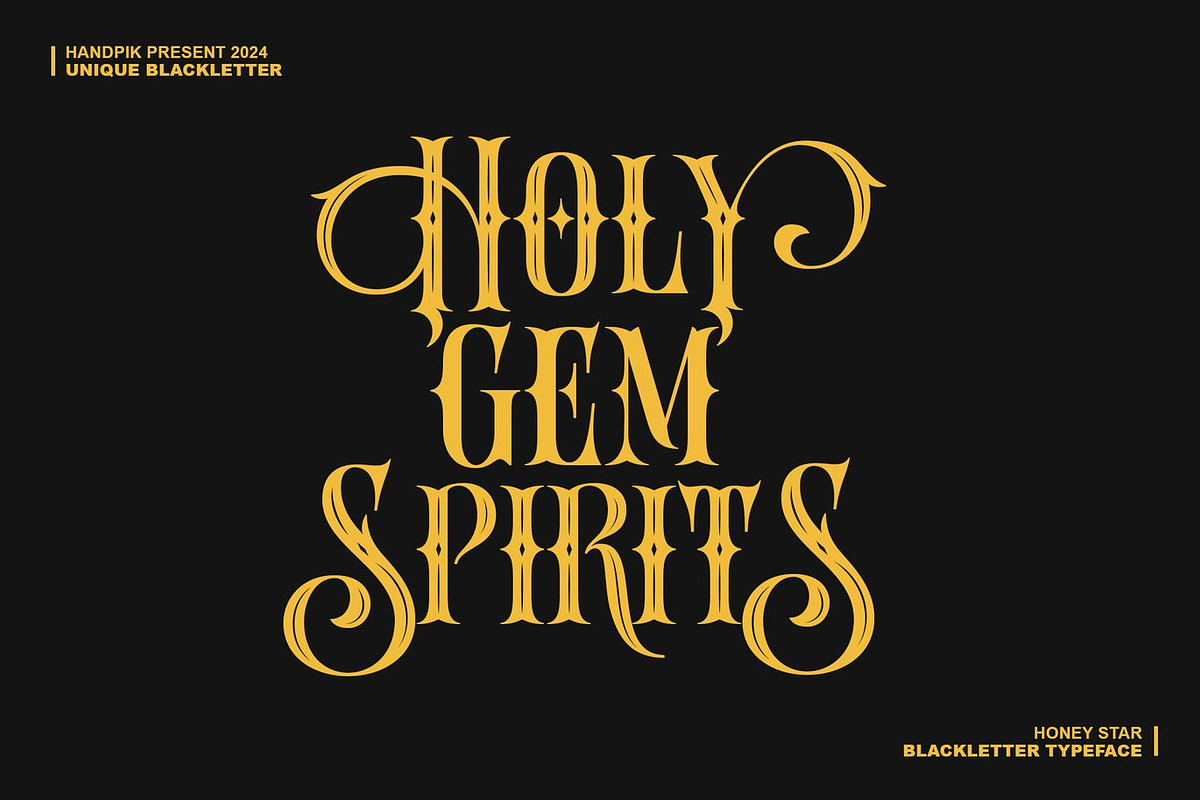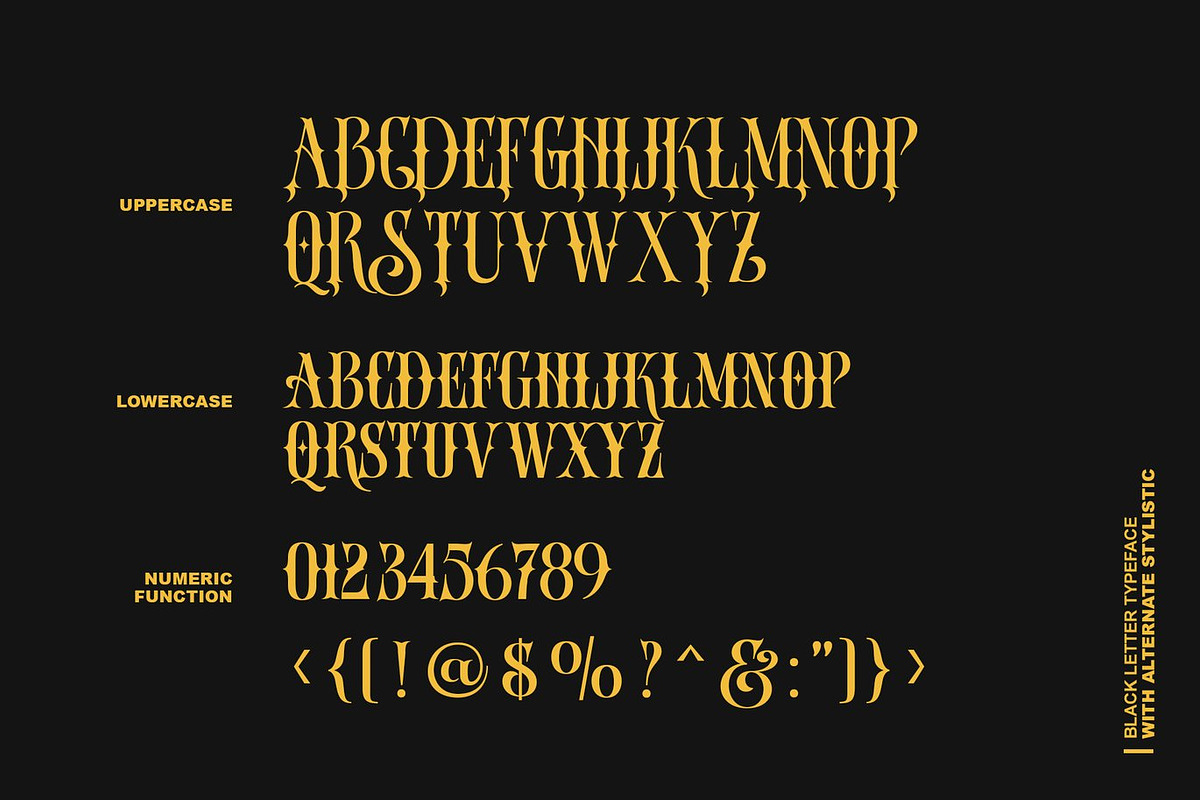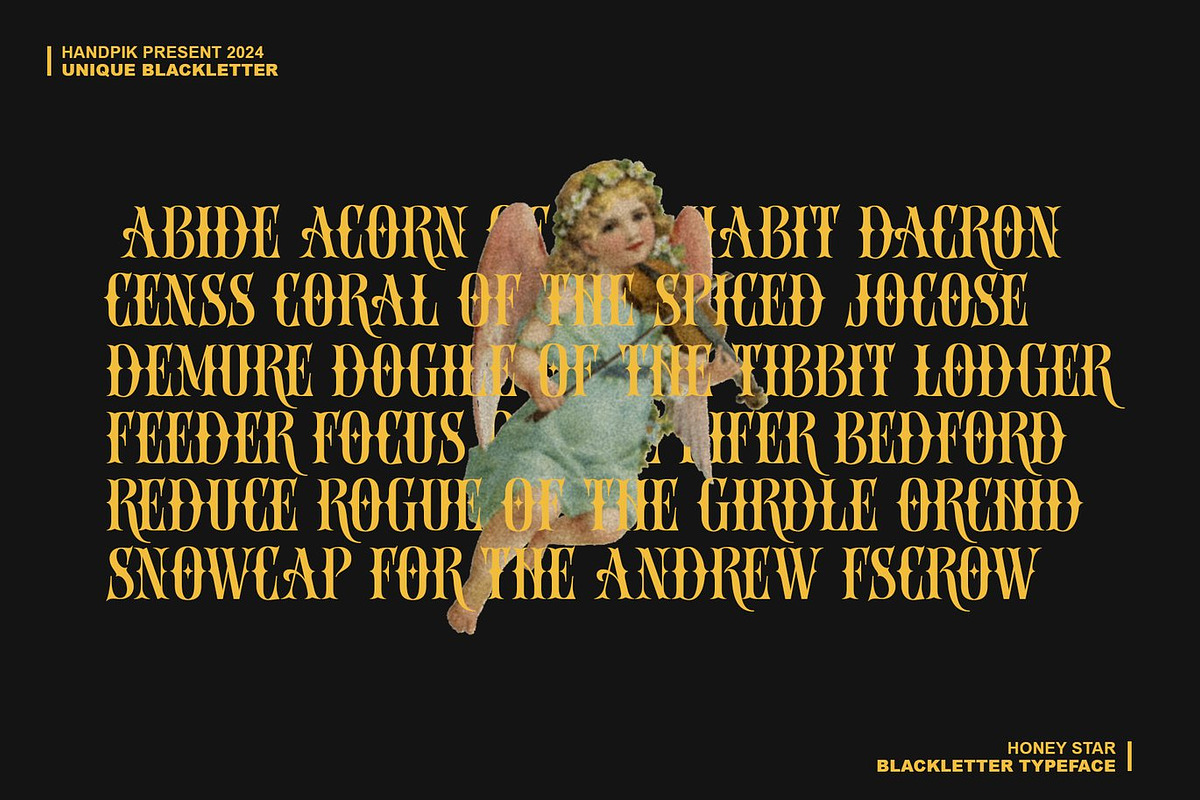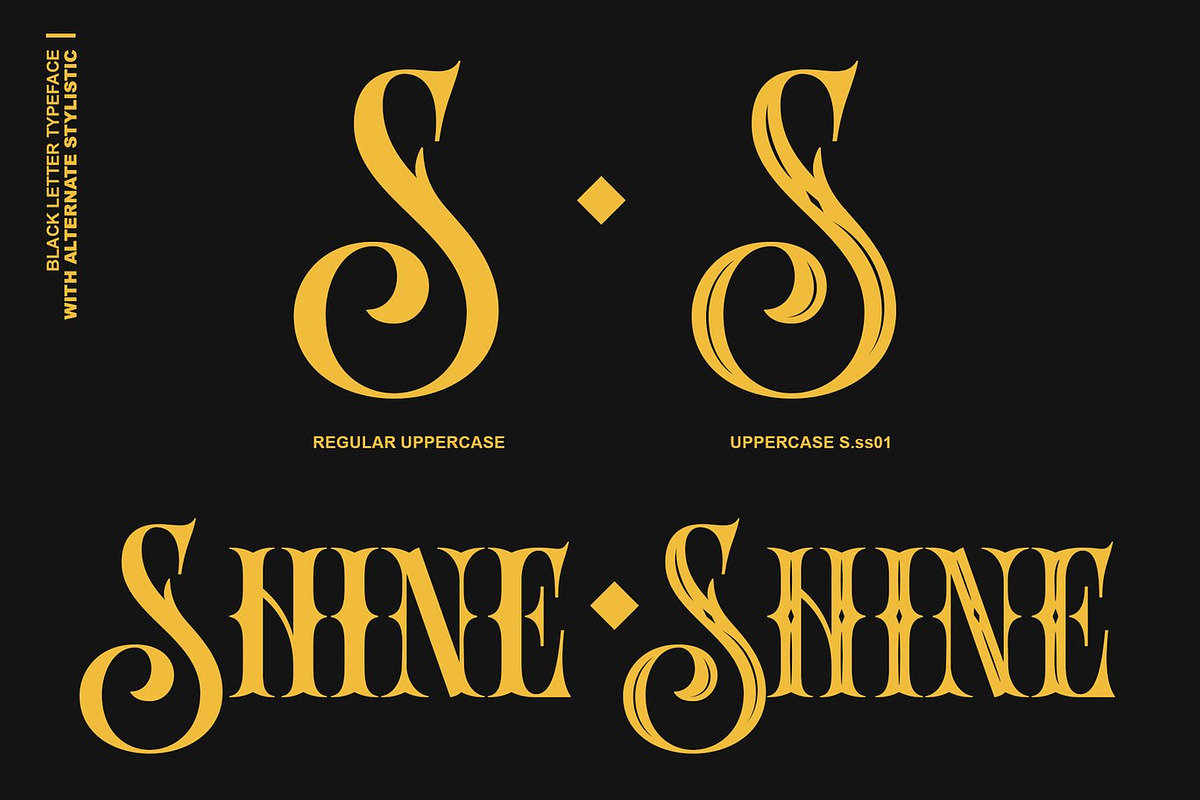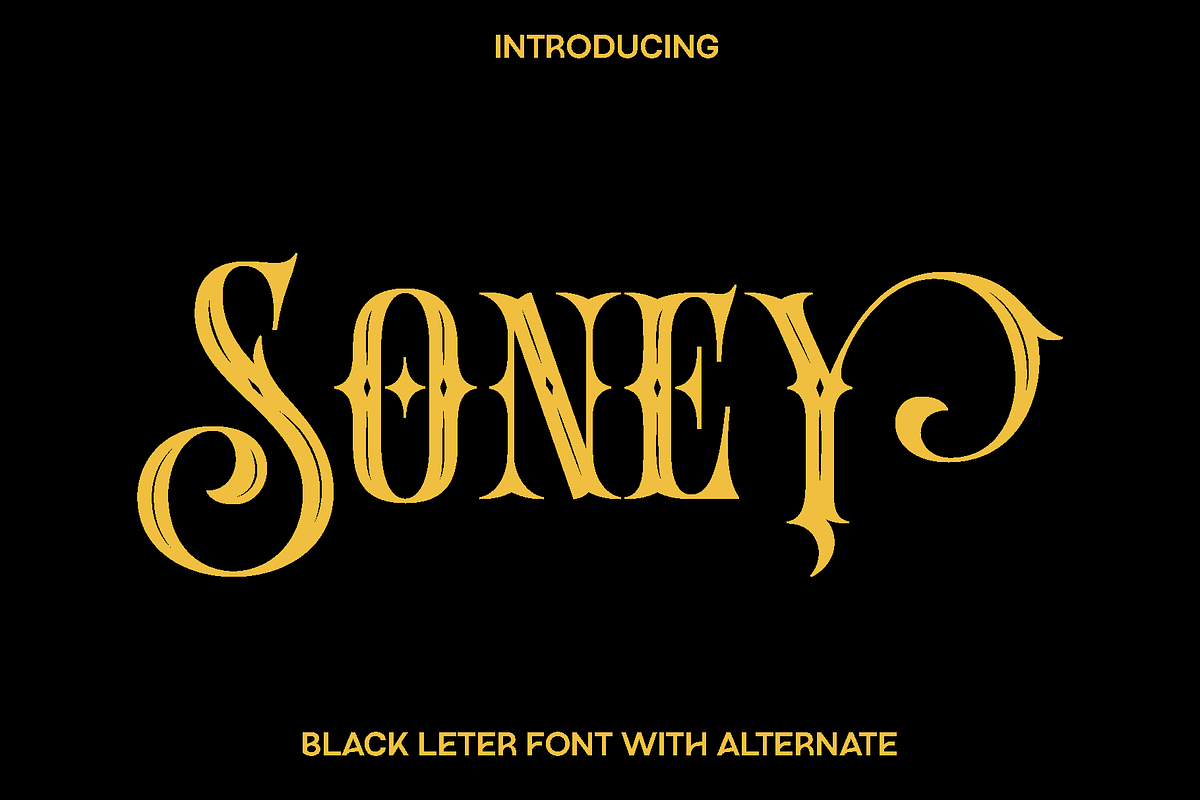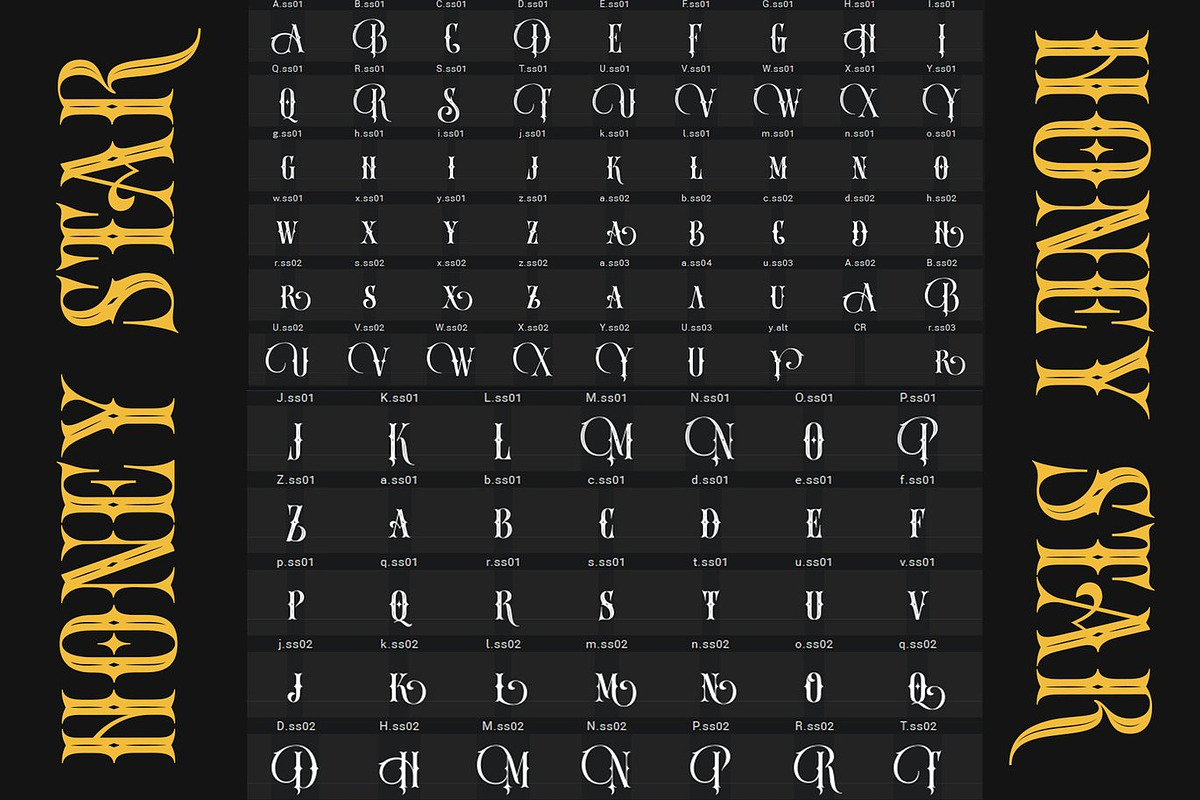
Soney - Blackletter with Alternate
Soney is a stylish and versatile typeface designed to bring elegance and clarity to modern creative projects. Inspired by contemporary editorial design and refined typography, Soney blends smooth letterforms with balanced proportions to create a font that feels both sophisticated and approachable. Its clean structure and subtle personality allow it to adapt beautifully to a wide range of design styles, making it a dependable choice for designers who value both aesthetics and readability.
This typeface shines across many creative applications. Soney works beautifully in book layouts, magazine titles, brand identities, and professional logos. It also performs exceptionally well in photography overlays, inspirational quotes, blog headers, posters, and advertising materials. Whether used for bold headlines or refined text compositions, Soney helps communicate your message with clarity and visual appeal.
The font carries a modern yet timeless character that makes designs feel polished and professional. Its thoughtful construction ensures consistency across both print and digital media, while its stylistic alternates allow designers to add unique touches that enhance creativity. With Soney, every design gains a refined typographic presence that feels both modern and expressive.
Soney Font Features:
• Uppercase and lowercase characters
• Numerals and functional punctuation
• Multilingual support
• Stylistic alternates
• Carefully crafted letterforms for versatile design use
Soney is a reliable and elegant addition to any designer’s font collection, ready to elevate branding, editorial, and creative projects with a refined and modern typographic style.